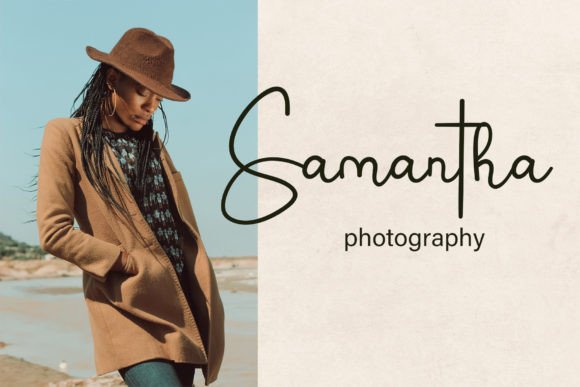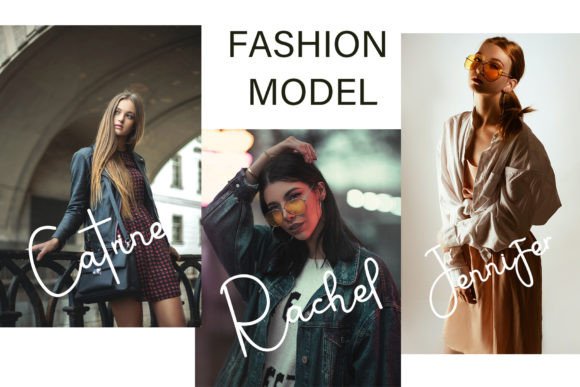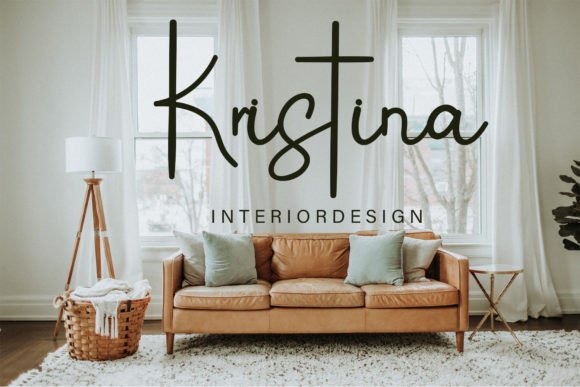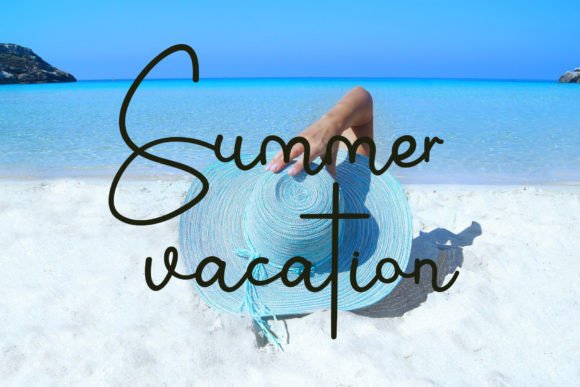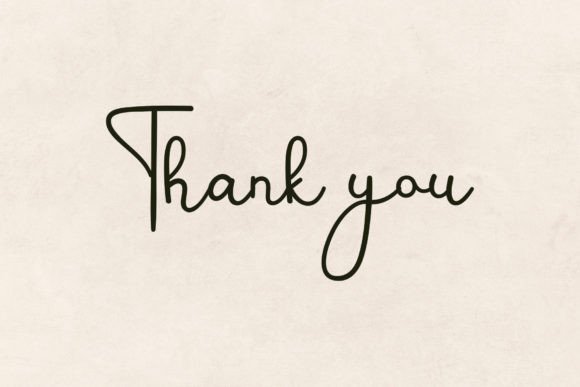
I still remember the design project that led me to Better Font. I was working on a branding project for a small bakery, and I needed a font that would convey warmth, friendliness, and a touch of elegance. I spent hours scouring font websites, but nothing seemed quite right. That was when I stumbled upon Better Font, a delicate handwritten font that stole my heart. In this article, I’ll share my experience with Better Font, its features, and how to make the most of it in your designs.
An Honest Review of Better Font
- ✨ Delicate and elegant handwritten style
- 💕 Unique character set, perfect for adding a personal touch
- 🎨 Versatile, suitable for a wide range of design projects
While Better Font is an excellent choice, it’s not without its quirks. For instance:
- 🤔 Limited availability of stylistic alternates (but still offers some nice OpenType features)
- ⚠️ May not be the best choice for very large or very small text sizes (due to its delicate nature)
The Story Behind Better Font
Better Font was designed with the intention of creating a unique, handwritten font that would add a touch of elegance to any design project. Inspired by the beauty of handwritten letters and the art of calligraphy, the designer aimed to craft a font that would be both delicate and legible. The result is a font that is perfect for designers, crafters, and creative hobbyists looking to add a personal touch to their work.
Q: Is Better Font suitable for body text?
A: While Better Font is highly legible, its delicate nature makes it more suitable for headings, titles, and short paragraphs. For longer body text, a more robust font might be a better choice.
Q: Does Better Font offer any OpenType features?
A: Yes, Better Font offers some OpenType features, including ligatures and stylistic alternates. These can be accessed through the Character panel or Font menu in Adobe applications.